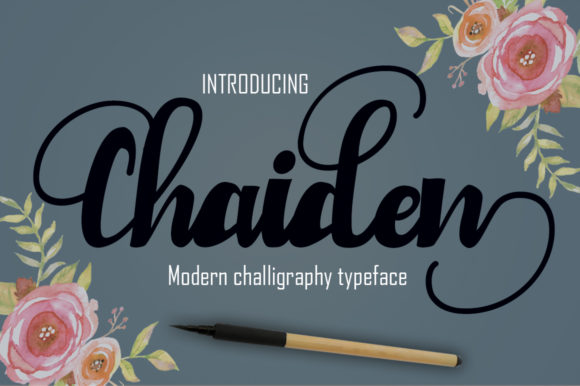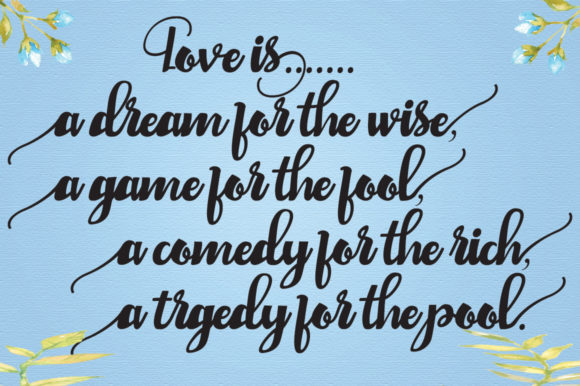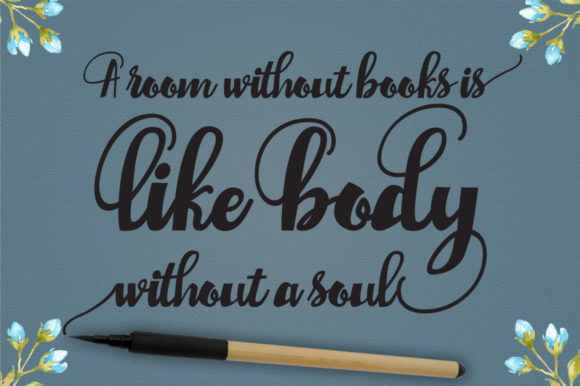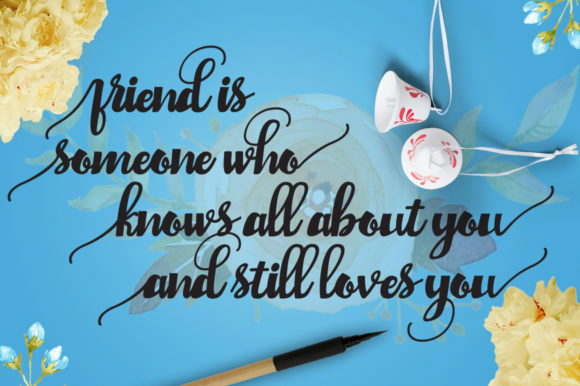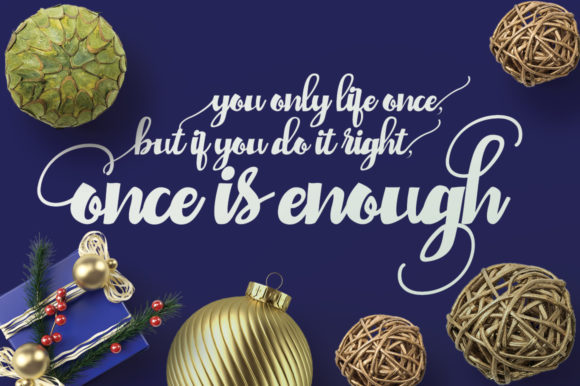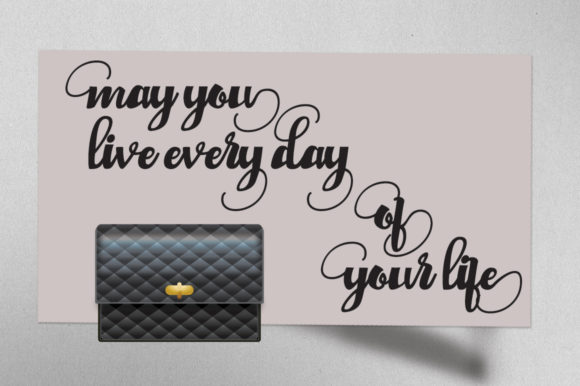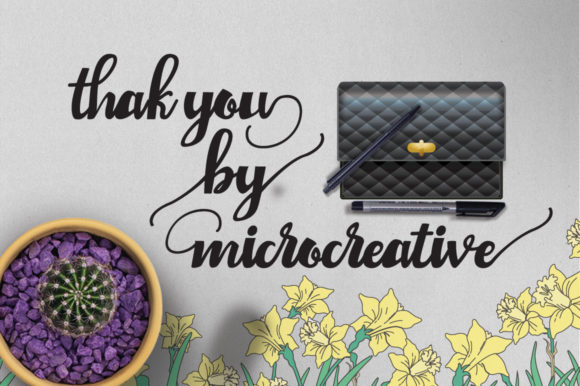
HomeScript FontsChaiden Font Script Fonts Chaiden Font FacebookXPinterestWhatsApp Chaiden Font Poster 2 Chaiden Font Poster 3 Chaiden Font Poster 4 Chaiden Font Poster 5 Chaiden Font Poster 6 Chaiden Font Poster 7 About Chaiden Font Chaiden is a bold and fun handwritten film with a cute vibe. It will add a romantic spark to any design project! DOWNLOAD NOW People also explored Chalista Font Afronghey – Handwritten Font Two Fingers Fadilla Script Font Bottomline Font Nadia Script The Legend of Christmas Font Eritta Font Gingerbread Font 360 0 TagsChaiden Font Previous articleMeuttuah FontNext articleAlexandria Font LEAVE A REPLY Cancel reply Comment: Please enter your comment! Name:* Please enter your name here Email:* You have entered an incorrect email address! Please enter your email address here Website: Save my name, email, and website in this browser for the next time I comment. Personal Use Free Cherry Ai Personal Use Free Read more about this font Letter Hanger Personal Use Free Read more about this font Shelly Personal Use Free Read more about this font Midnight Show Personal Use Free Read more about this font BLOG Top 7 Google Fonts Alternatives for Faster and Privacy-Friendly Web Design (2025) Top 7 Google Fonts Alternatives for Faster and Privacy-Friendly Web Design (2025) When it comes to web typography, Google Fonts has long been the go-to... Best Fonts for YouTube Videos: Make Your Thumbnails Stand Out Modern Sans-Serif Fonts That Brands Love in 2025 Free vs Paid Fonts: Why Investing in Premium Fonts Is Worth It